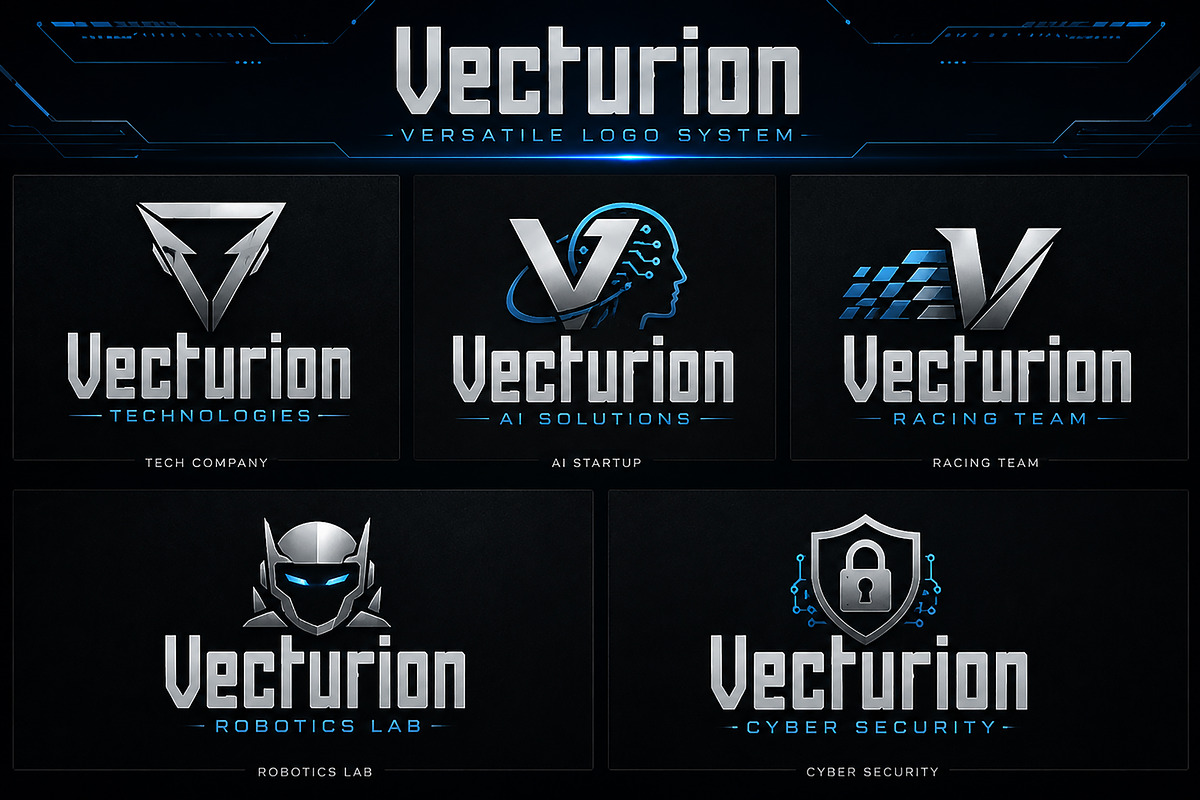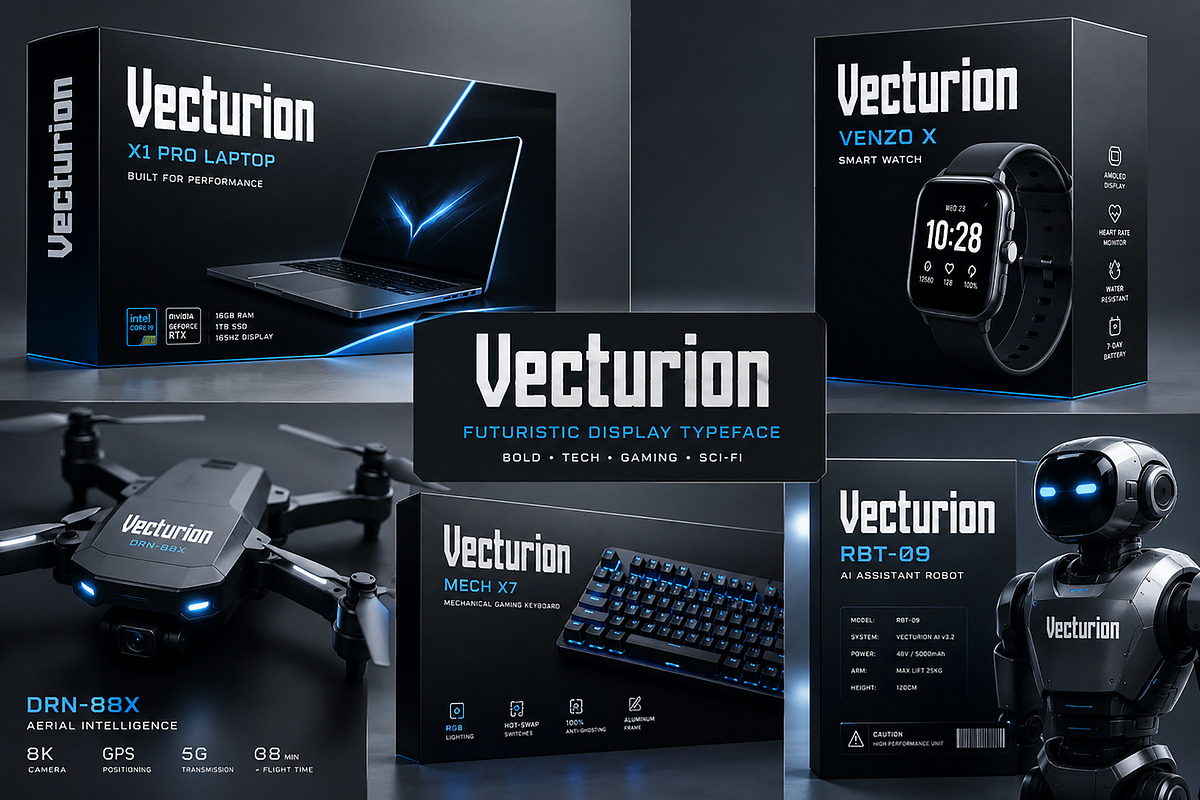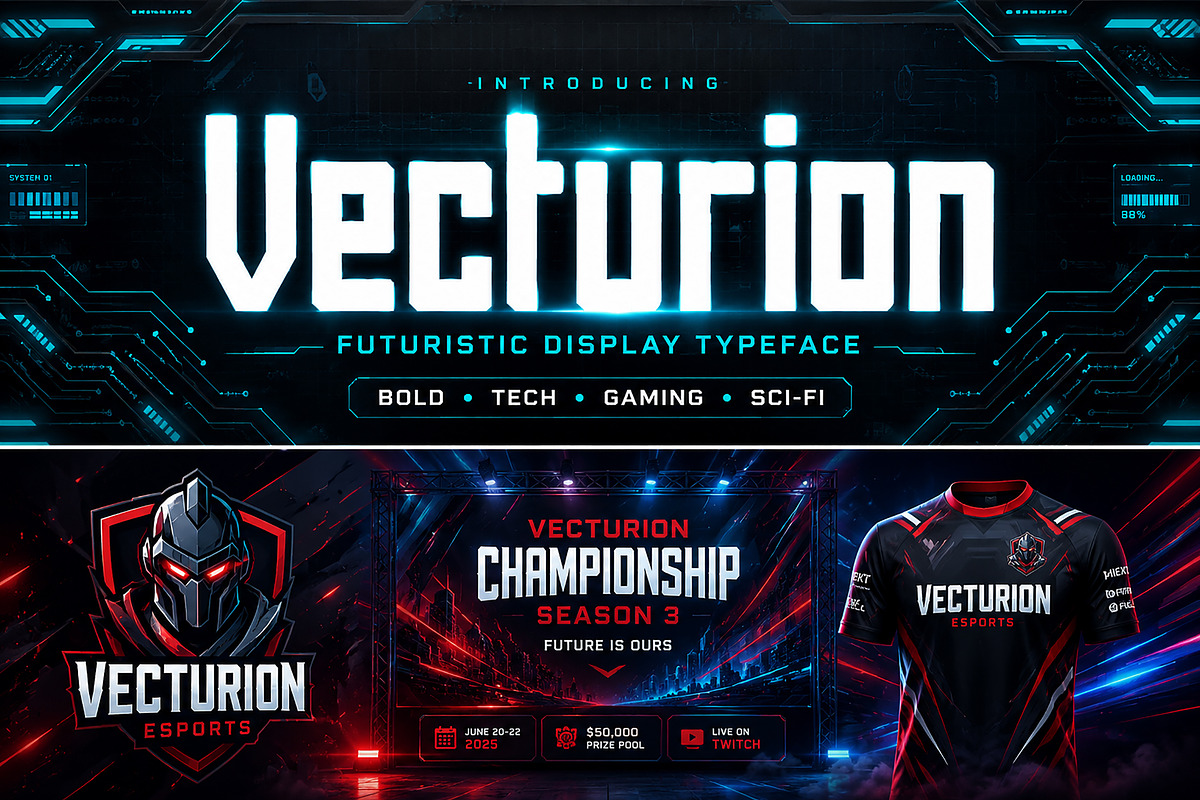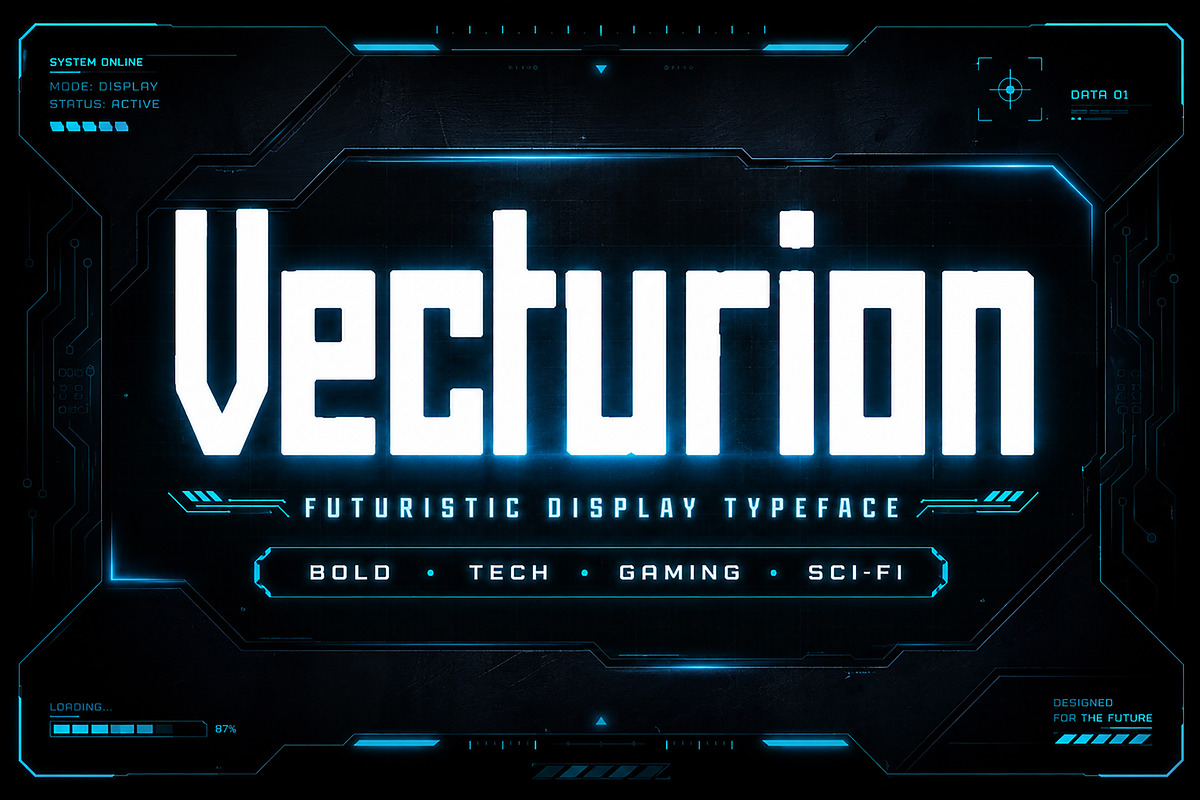
Vecturion
Vecturion is a bold futuristic display typeface crafted for modern digital branding. Designed with sharp geometric cuts, narrow proportions, and strong industrial aesthetics, this font delivers a powerful sci-fi and cyberpunk feel perfect for high-impact visuals.
Built for creators who need a strong technological edge, Vecturion works exceptionally well in gaming logos, esports branding, tech packaging, movie posters, robotics projects, AI branding, cyber security visuals, and futuristic UI concepts.
Its sleek and aggressive structure makes it ideal for projects that demand speed, power, innovation, and next-generation style.
Gaming & Esports Logos
Sci-Fi Movie Titles
Tech Branding
AI Startup Identity
Robotics Projects
Cyber Security Designs
YouTube Thumbnails
Posters & Headlines
Racing Team Branding
Take your designs into the future with Vecturion.